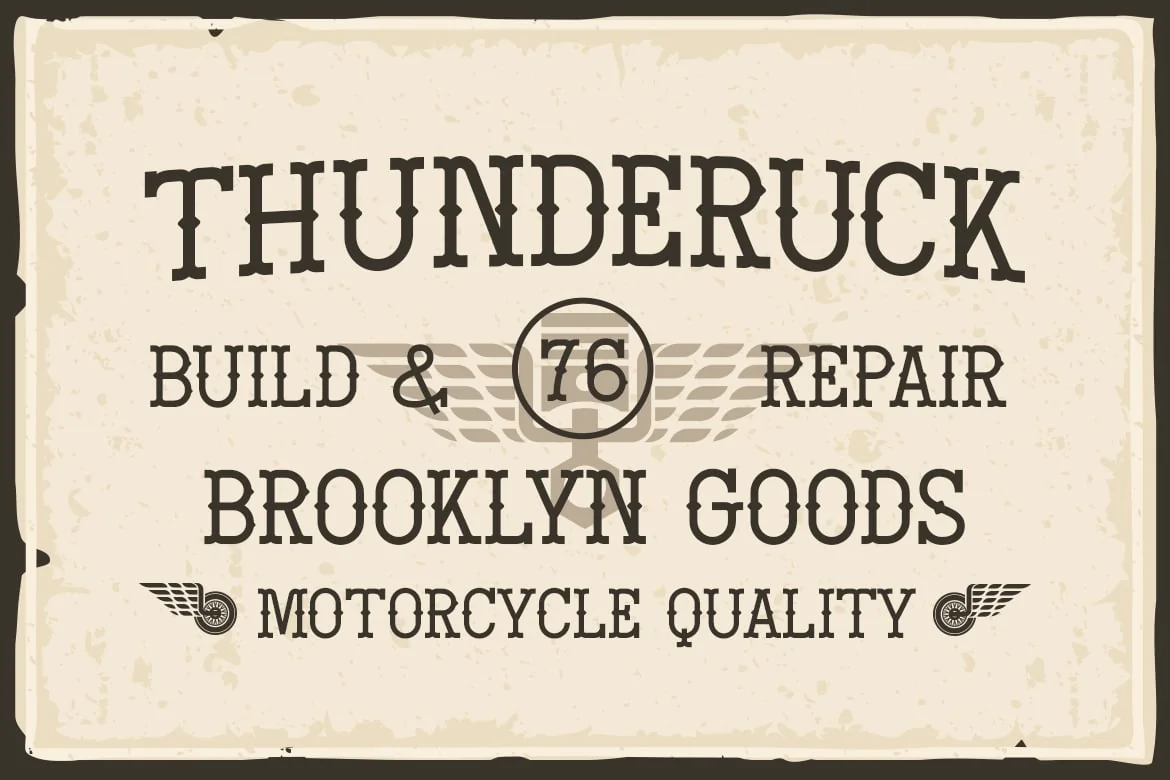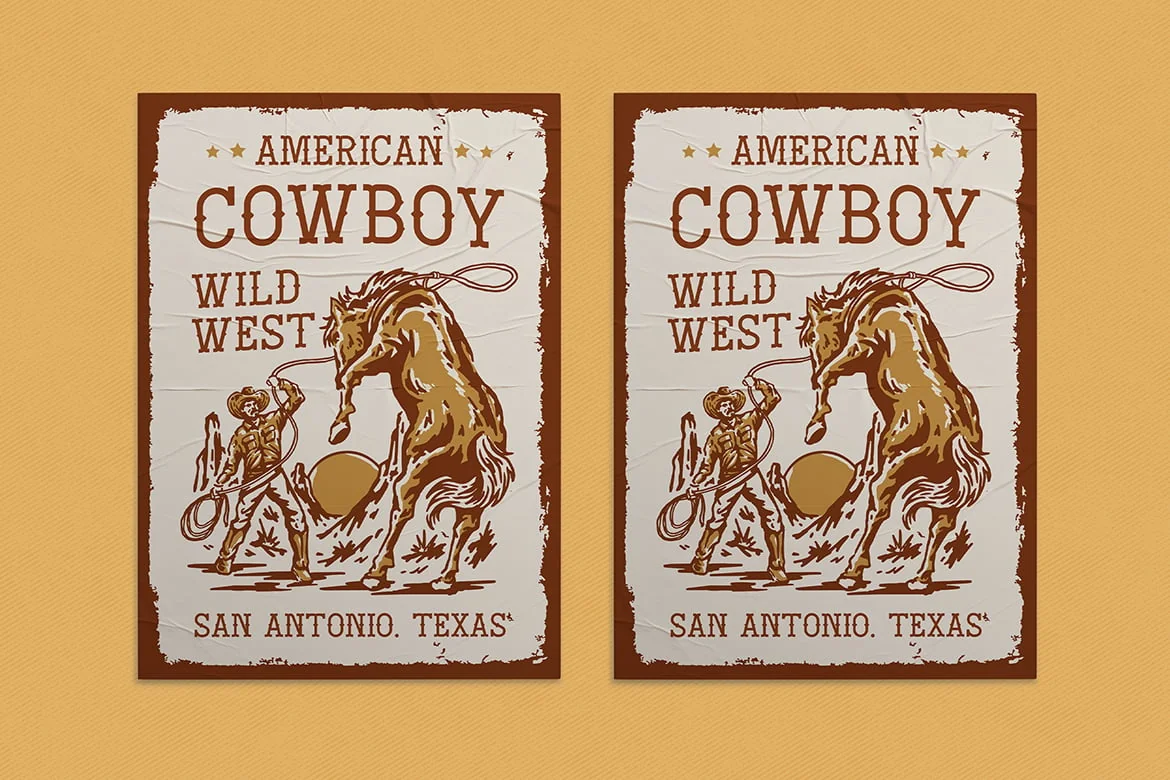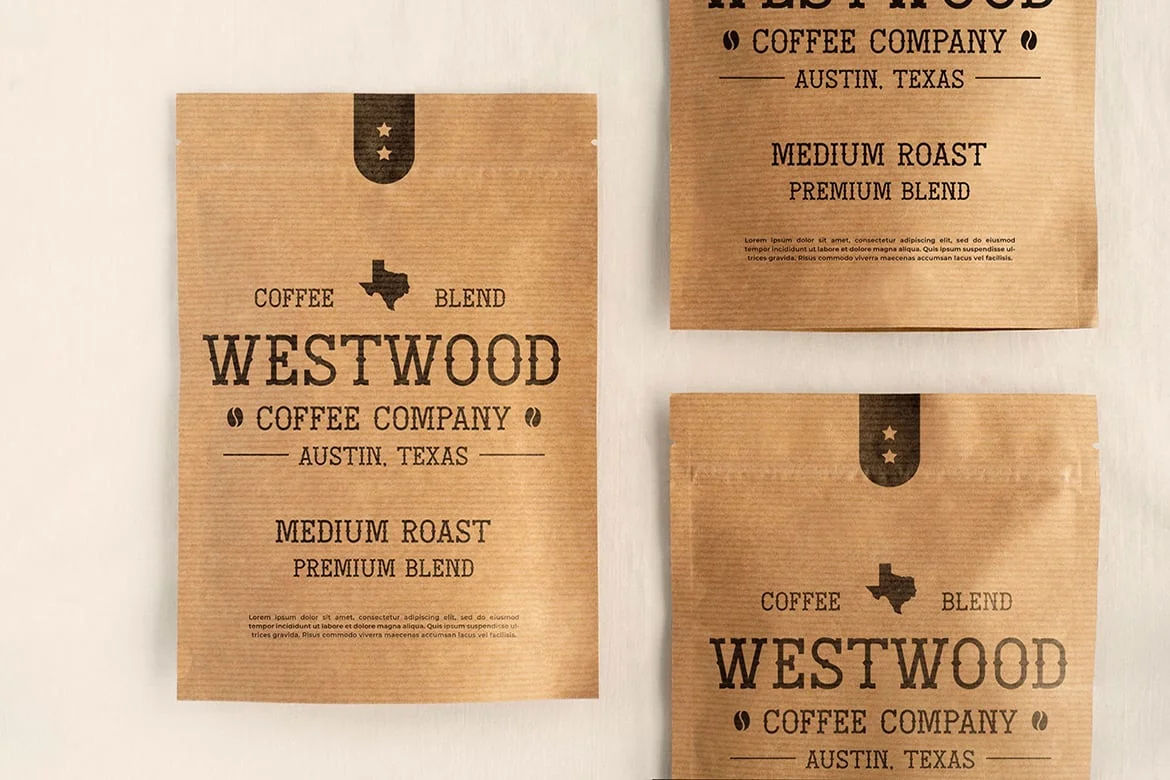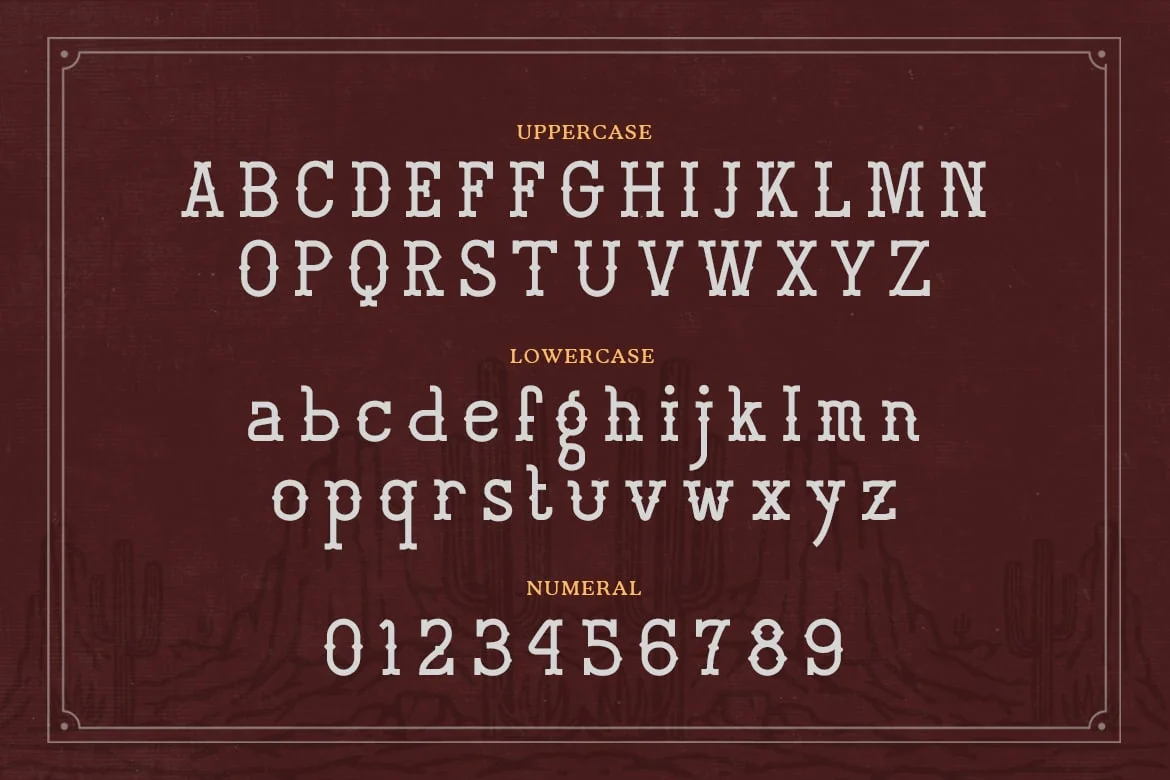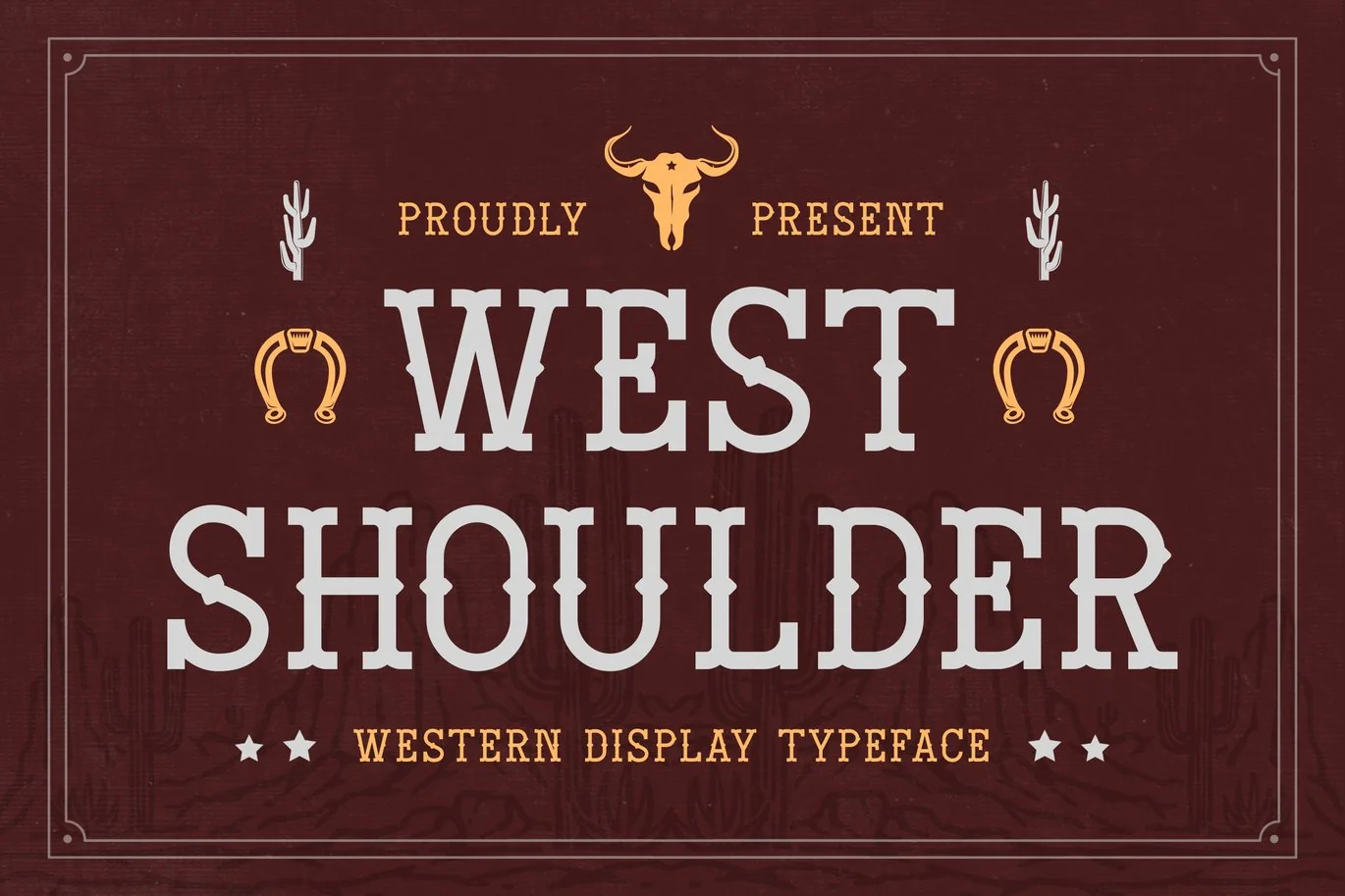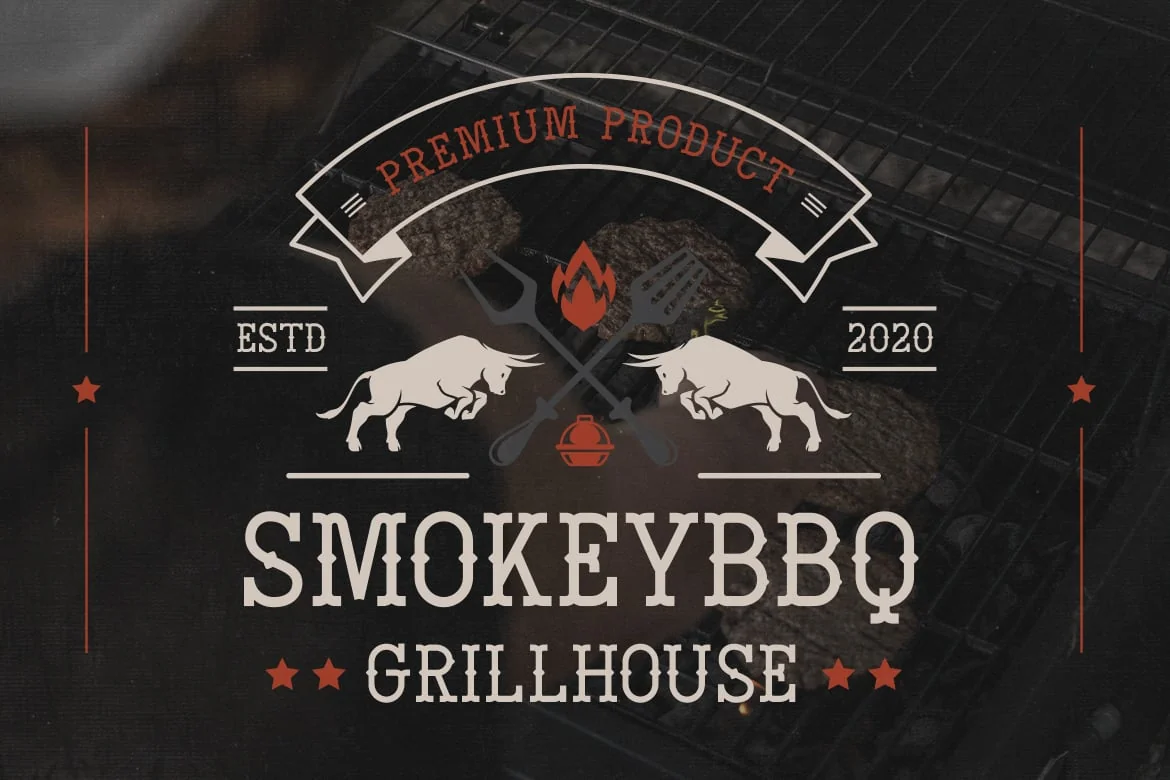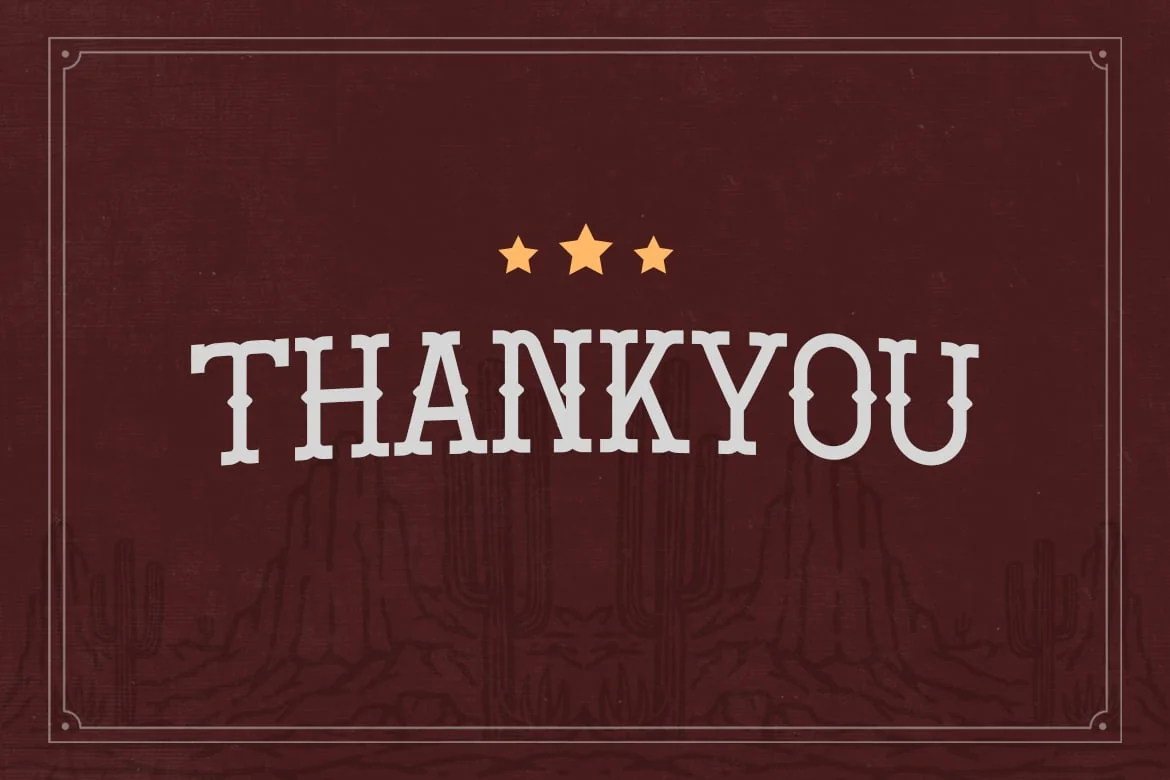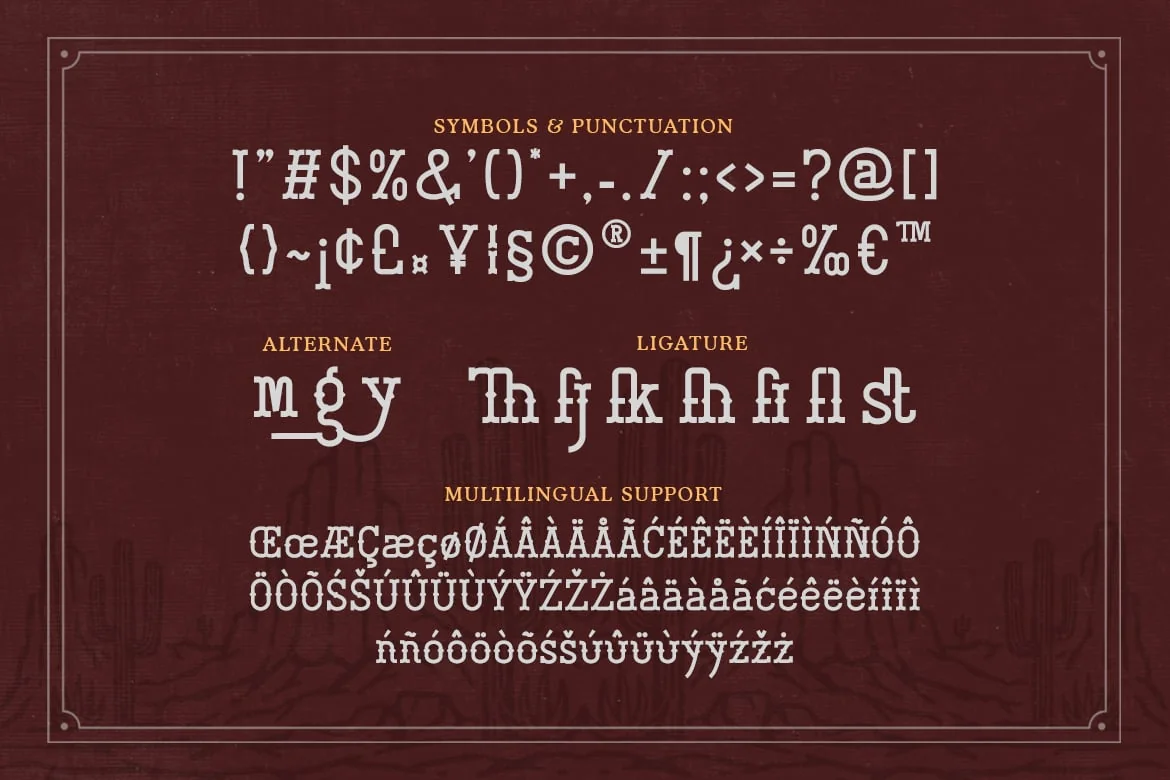
West Shoulder – Western Display Typeface
Introducing “West Shoulder” – a rugged Western display typeface evoking the spirit of the frontier, perfect for adding a touch of the Old West to your designs.
With its weathered appearance and bold letterforms, “West Shoulder” offers versatility and authenticity, making it ideal for branding, signage, posters, and more.
Embrace the rugged charm of “West Shoulder” as it effortlessly enhances your designs with its Western typography and frontier flair.
Step into the wild frontier of design with “West Shoulder” and let your creativity roam free with its adventurous style.